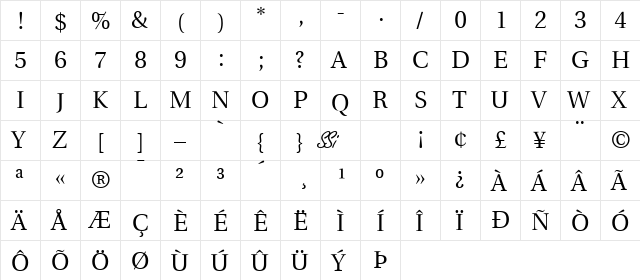
Veracity Titling Caps SSi Regular
Design Context for Veracity Titling Caps SSi Typeface
Veracity Titling Caps SSi offers clean, dependable letterforms without strong stylistic allegiance, making it a practical choice for designers who need flexibility.
Pro Tip: Use Veracity Titling Caps SSi in both headline and body roles to test its range before committing to a single application.